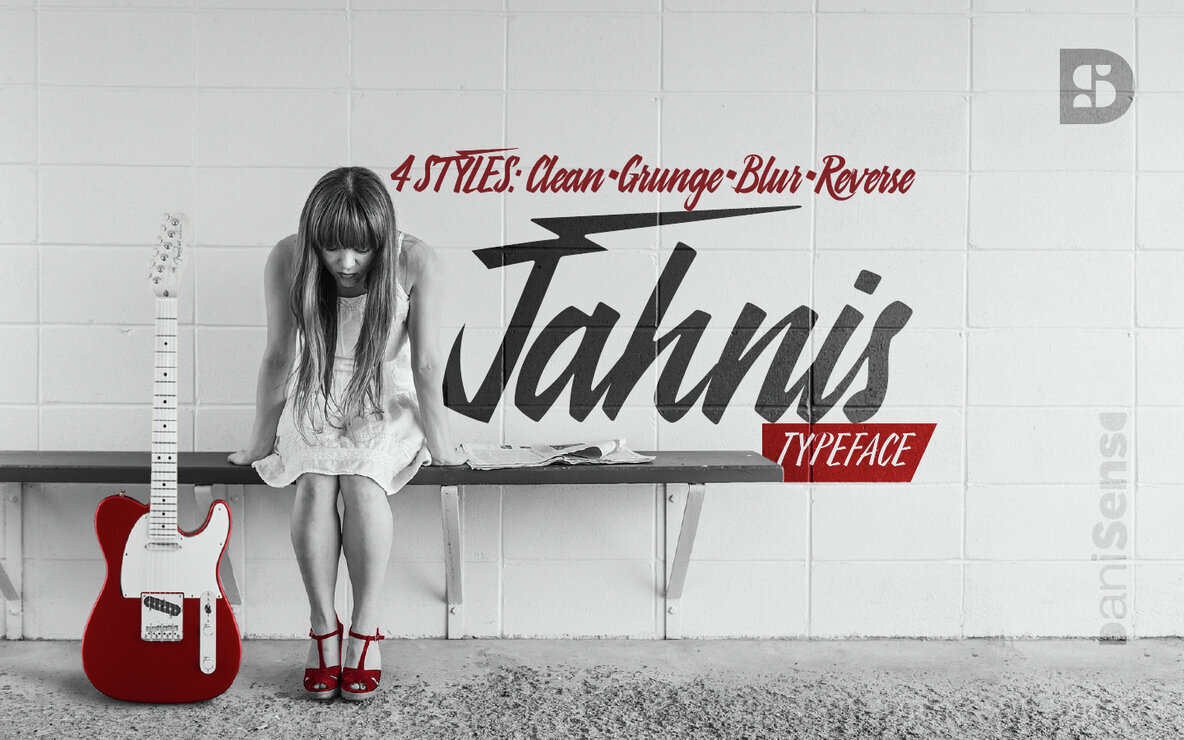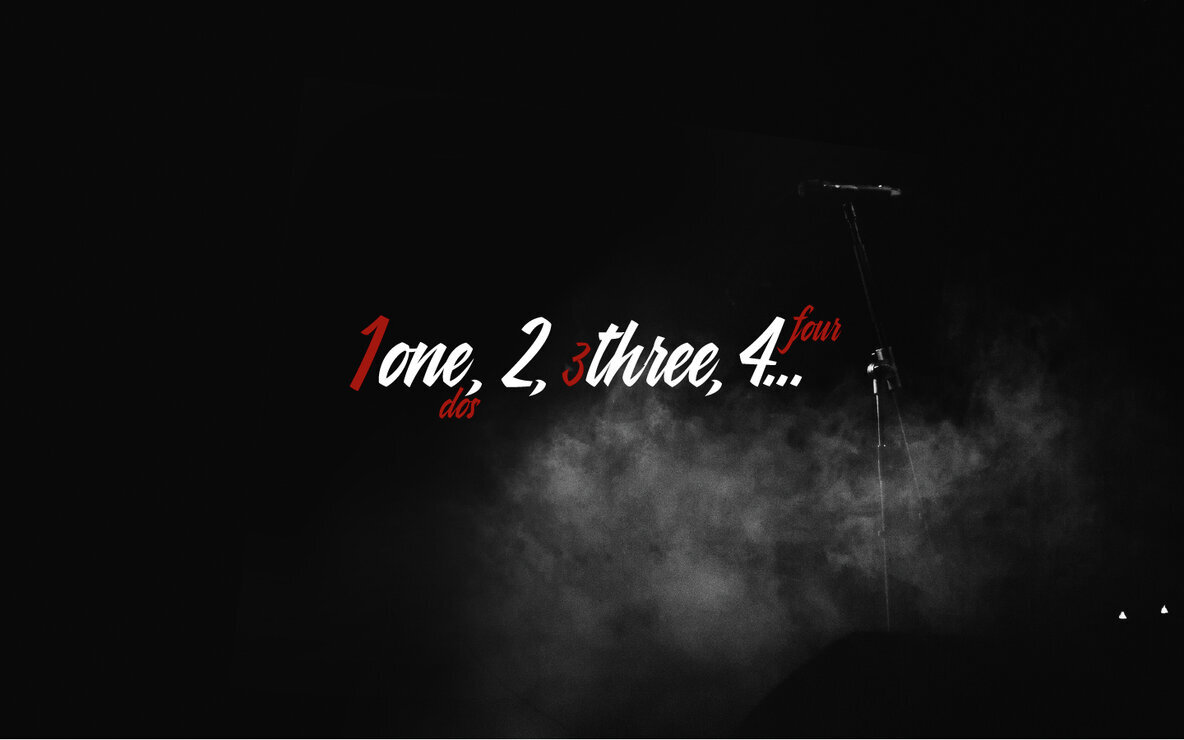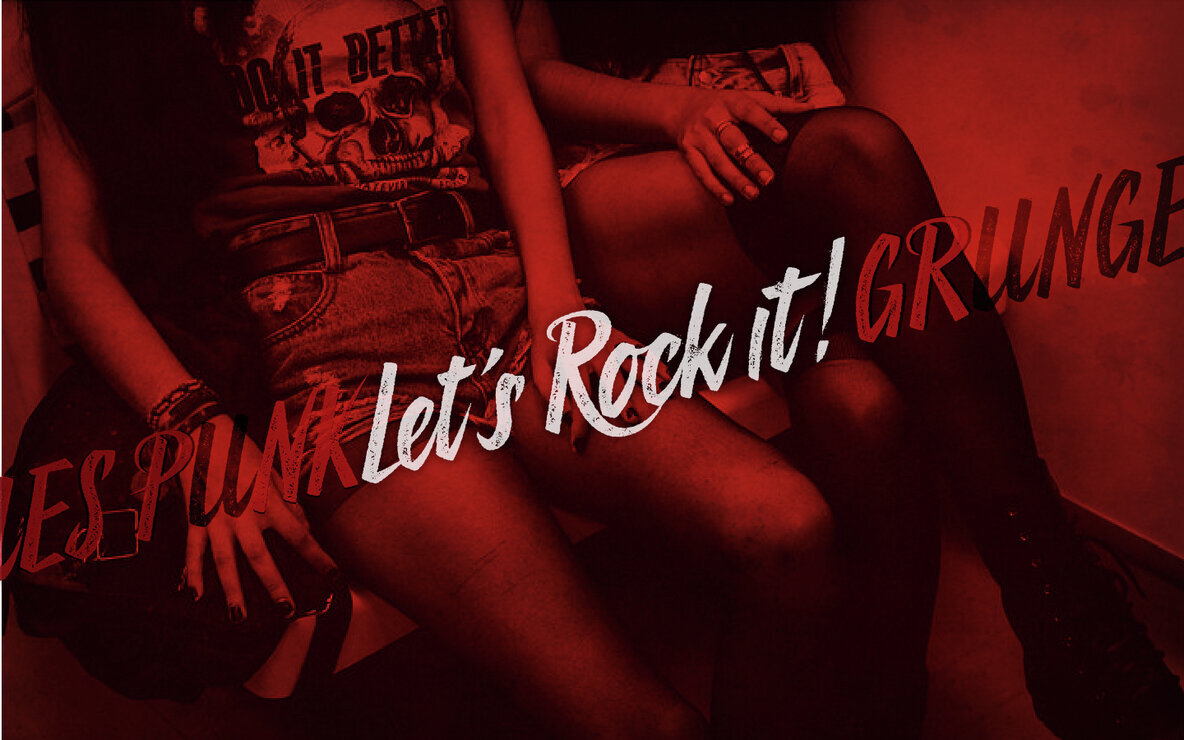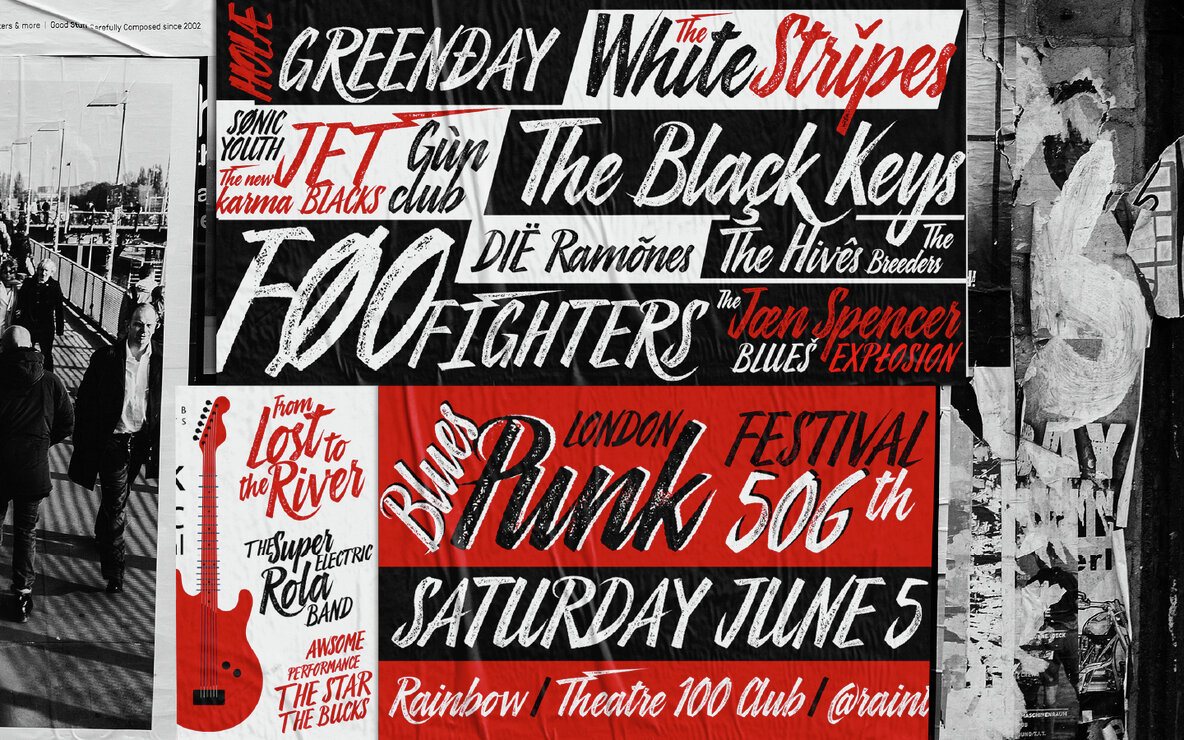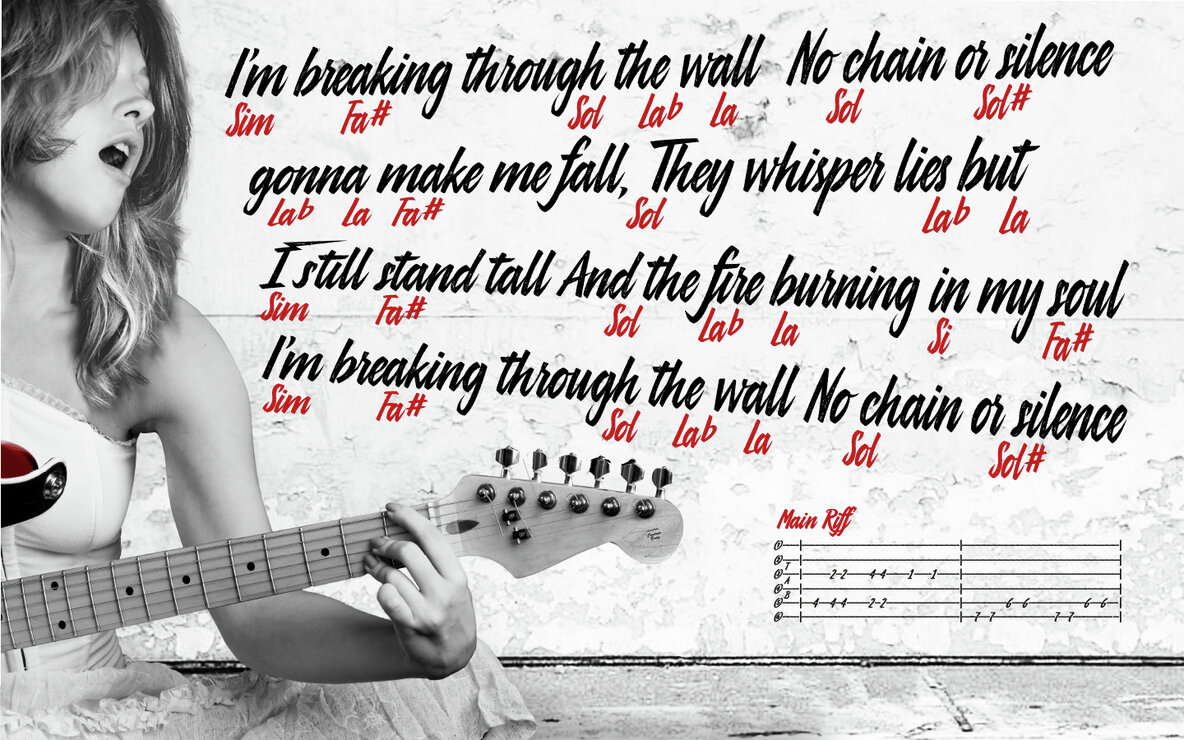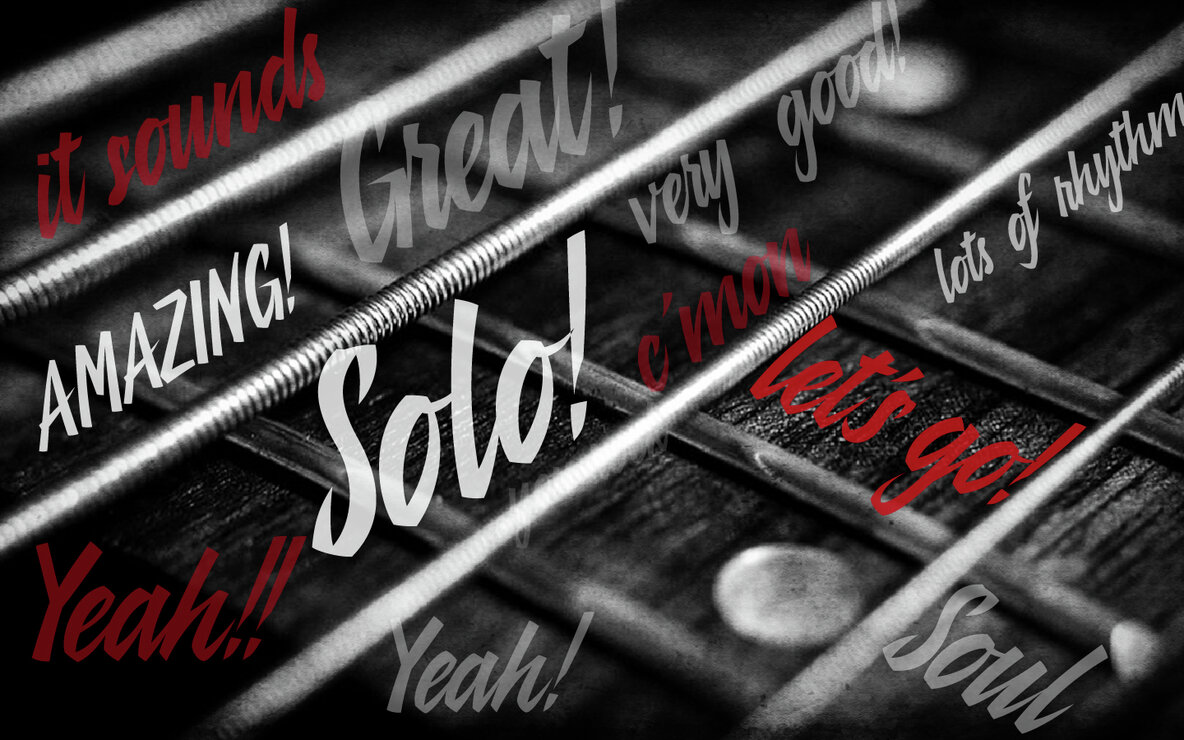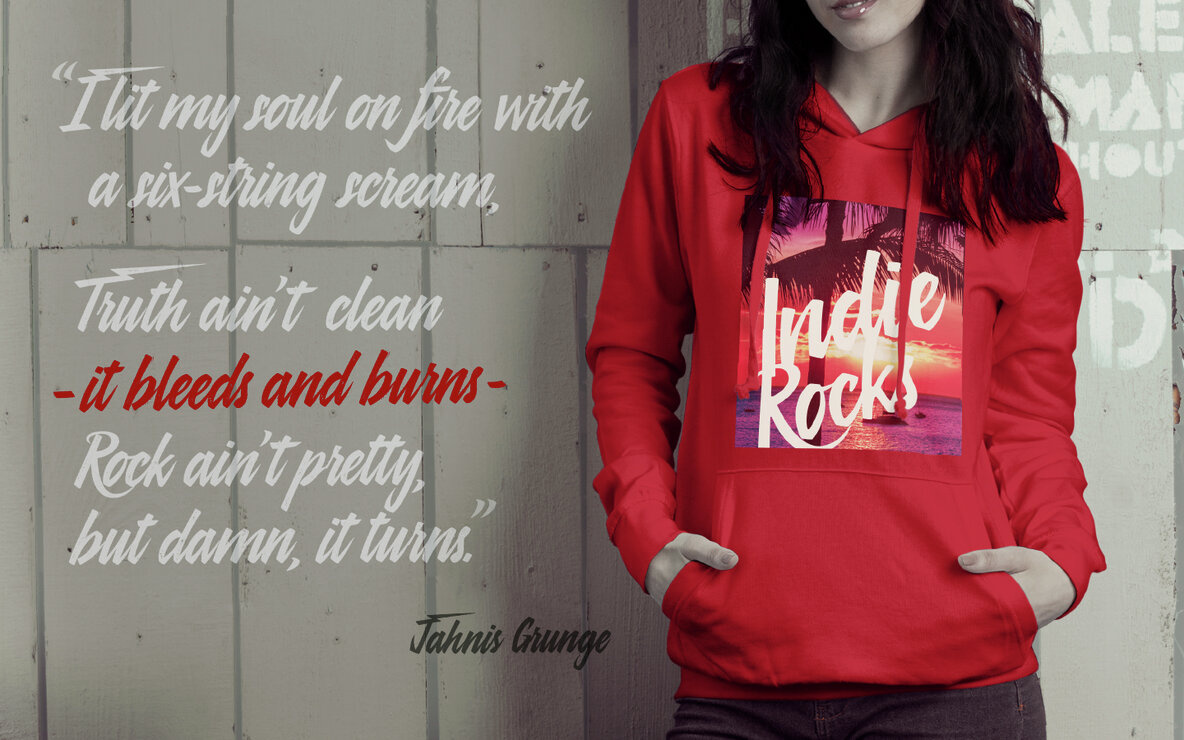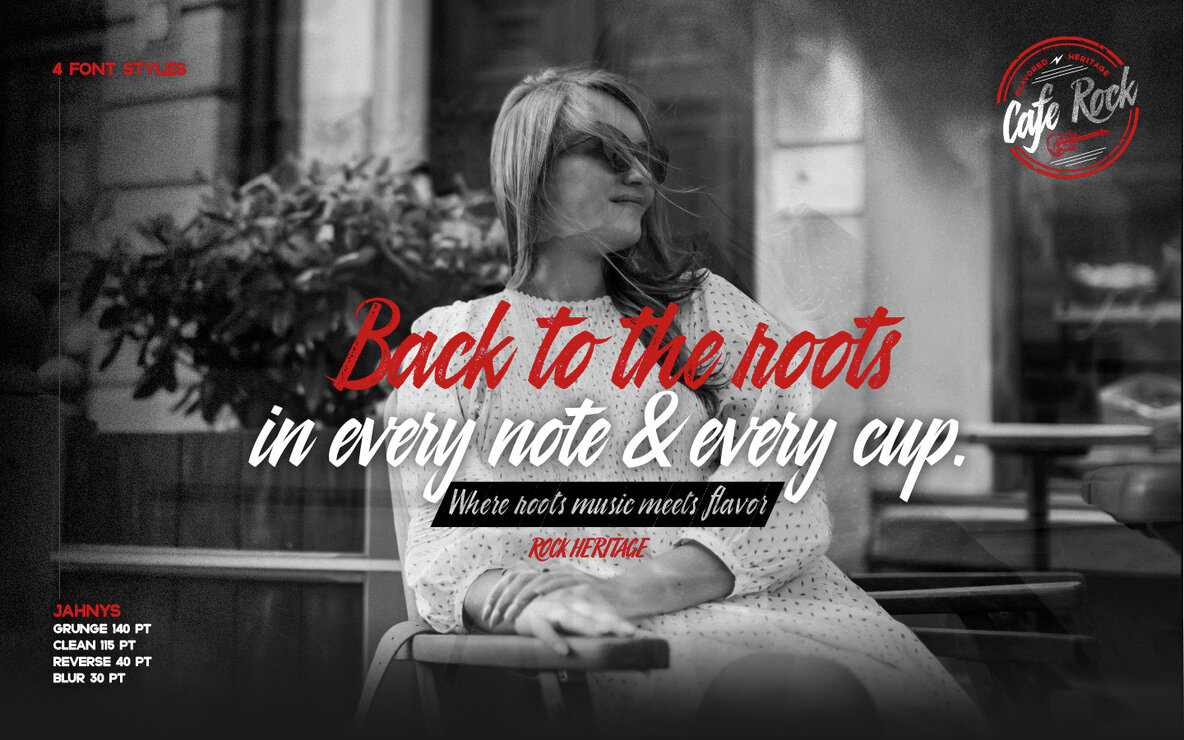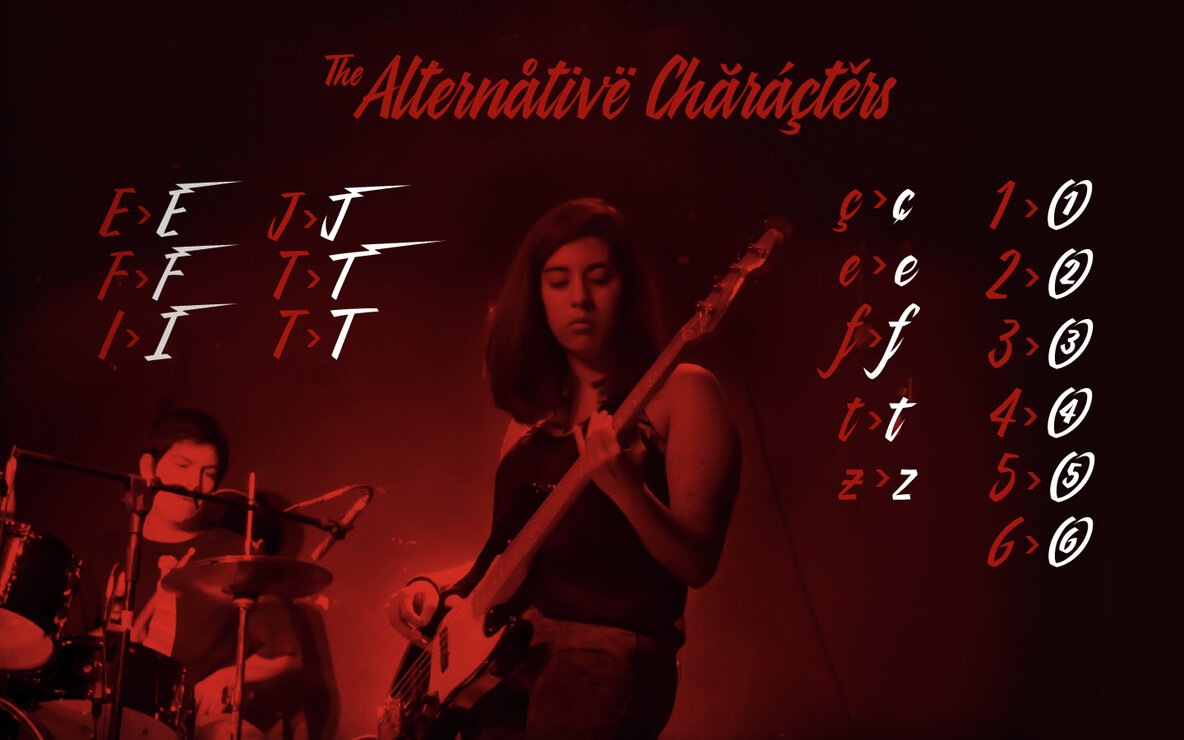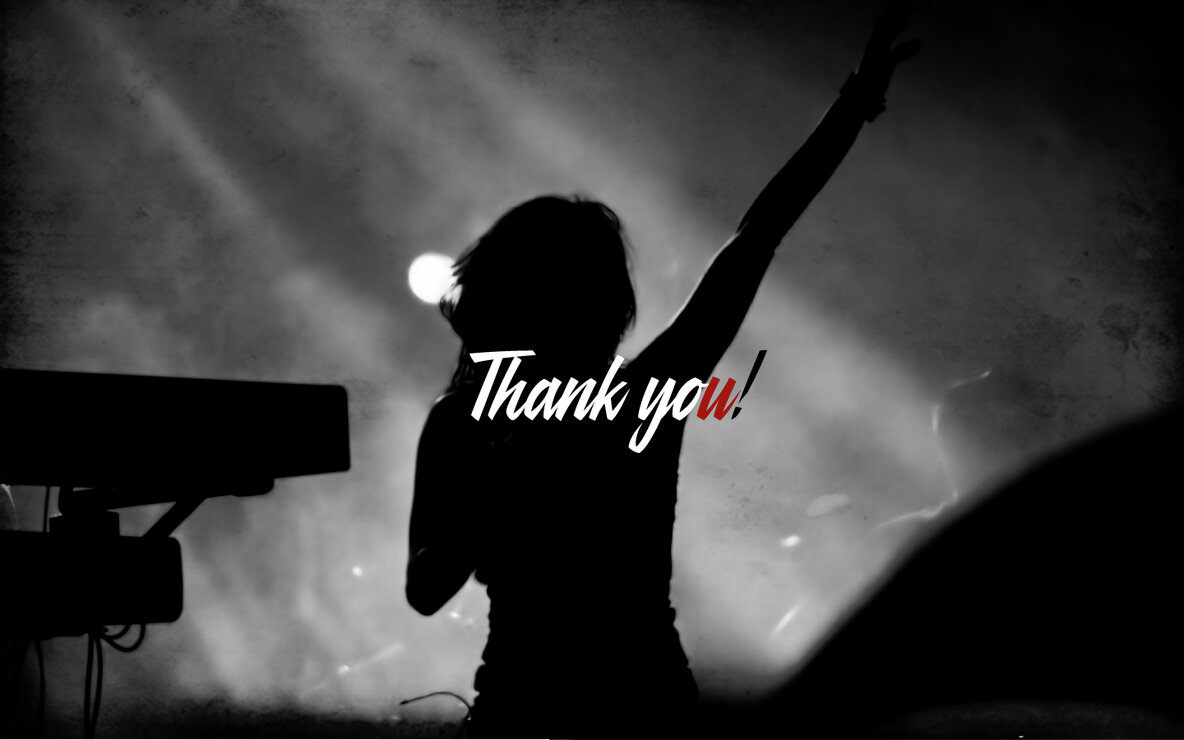
Jahnis Font
Jahnis Blur
Jahnis Clean
Jahnis Grunge
Jahnis Reverse
Jahnis is a stunning hand-drawn typeface inspired by brush-tip calligraphy and effortlessly translated into digital form. This display font features sharp, condensed letters with thin, assertive strokes, making it perfect for impactful designs. Whether you're crafting logos, branding materials, signage, or designing t-shirts, posters, and quotes, Jahnis adds a touch of sophistication and character to any project. Each style complements the others and encompasses a wide range of OpenType features such as initial and terminal forms, stylistic alternates, ligatures, and both proportional and tabular numerals. With 410 glyphs, Jahnis supports basic and Western Latin alphabets, adapting seamlessly to any design need.Jahnis Typeface: Bold and Expressive Elegance
Versatile Styles